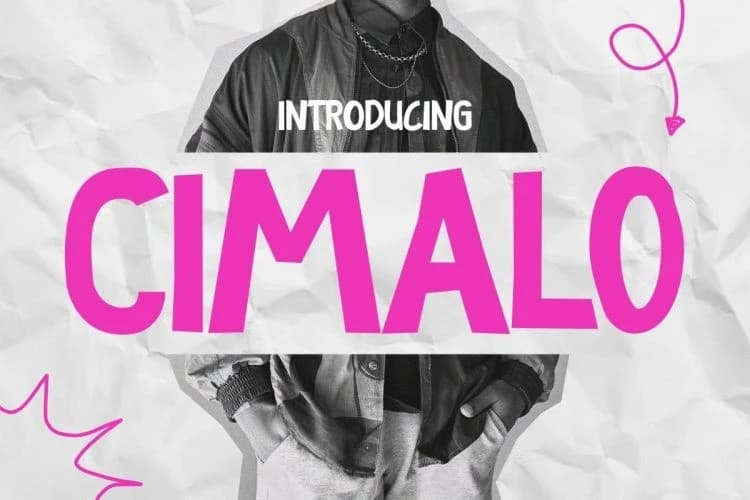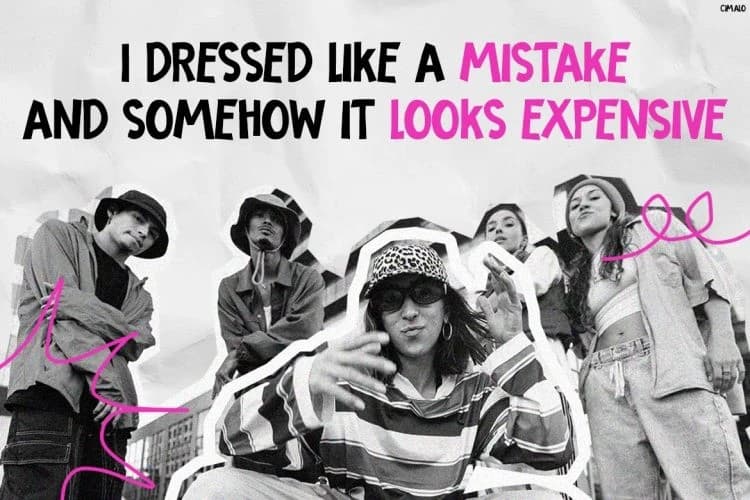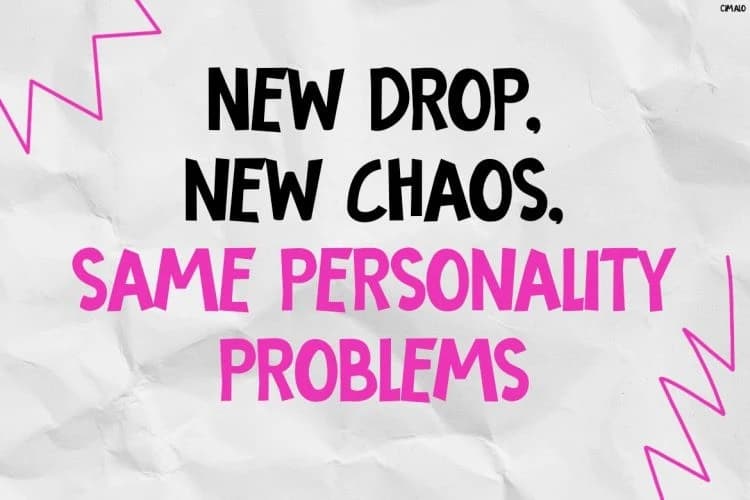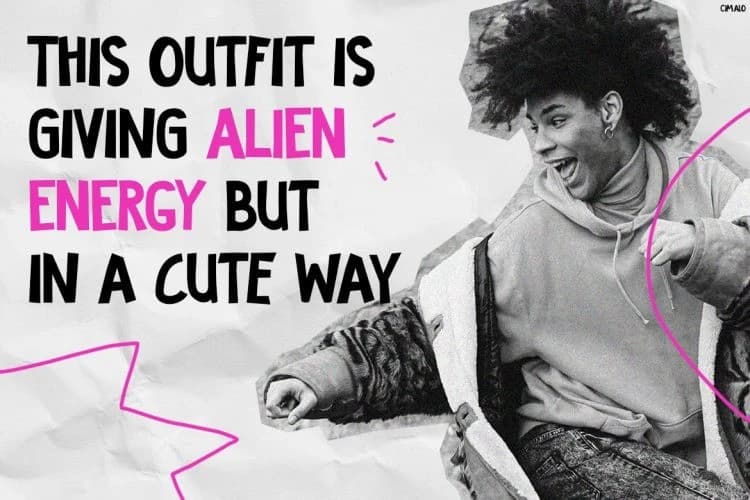
Cimalo Playful Font
Cimalo Playful Font is a striking, edgy typeface that blends bold street aesthetics with expressive personality. Moreover, its raw, urban-inspired shapes and high-contrast strokes instantly create a rebellious yet stylish vibe.